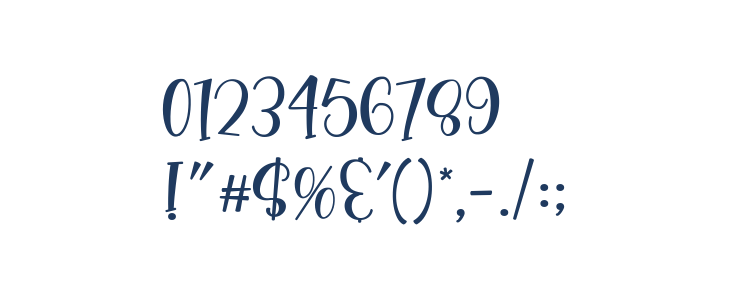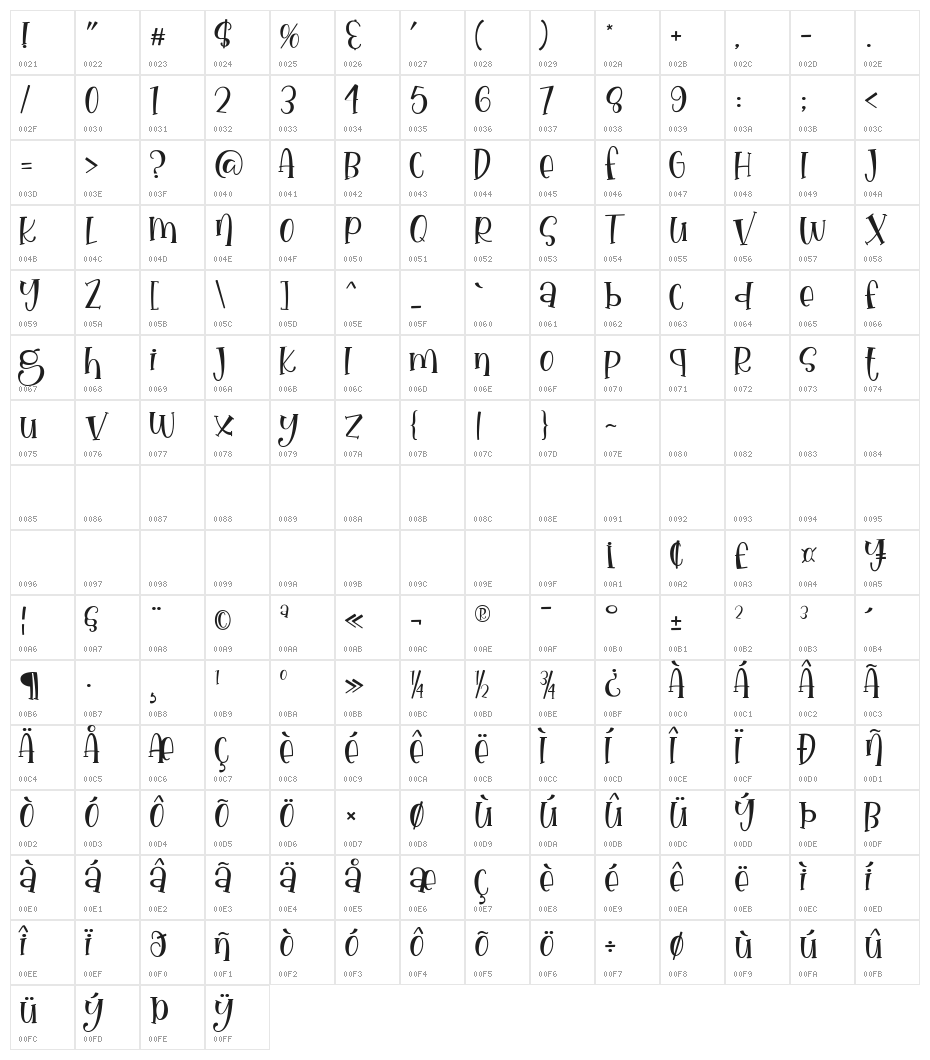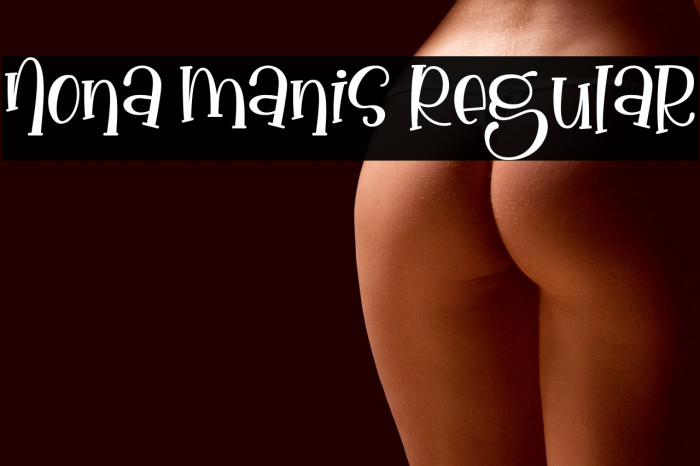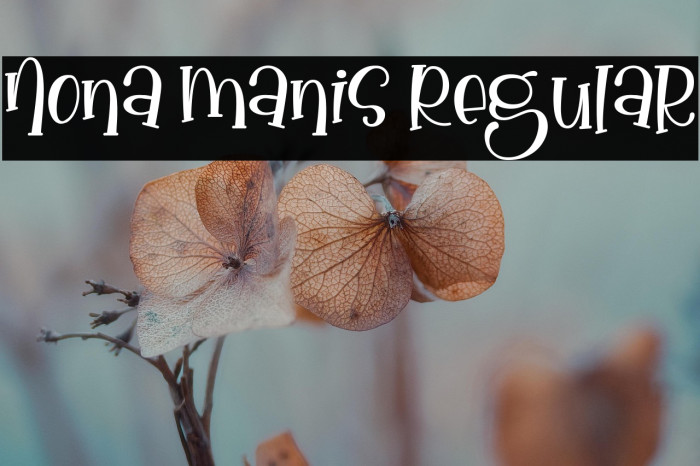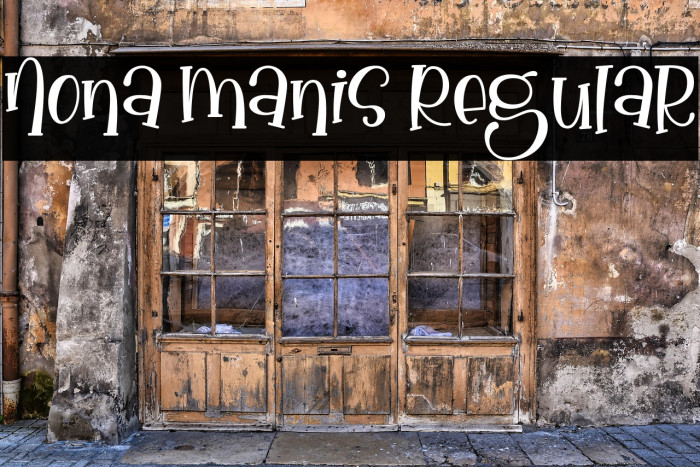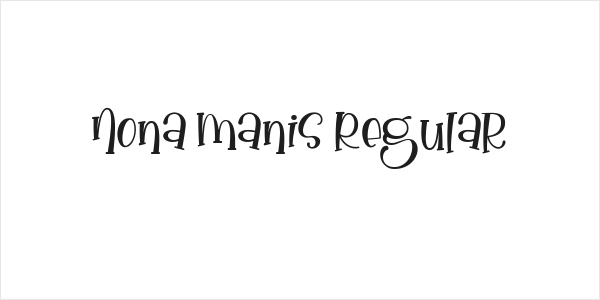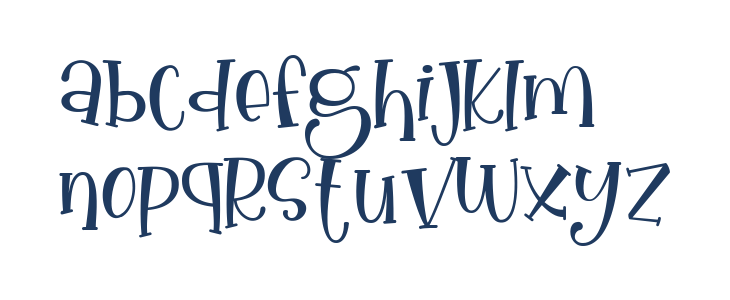
Nona Manis Regular Font
Nona Manis Regular Description
This playful and whimsical font features a unique blend of curves and angles, giving it a lively and dynamic appearance. The uppercase letters are tall and slightly narrow, with a quirky flair that adds character. Lowercase letters maintain a consistent style, with rounded forms and occasional loops that enhance its playful nature. Numbers and special characters follow the same design principles, ensuring a cohesive look across all elements. The font's overall style is both charming and approachable, making it suitable for a variety of creative projects.
| Proposed Projects | Ideal for children's books, playful branding, greeting cards, and creative posters. |